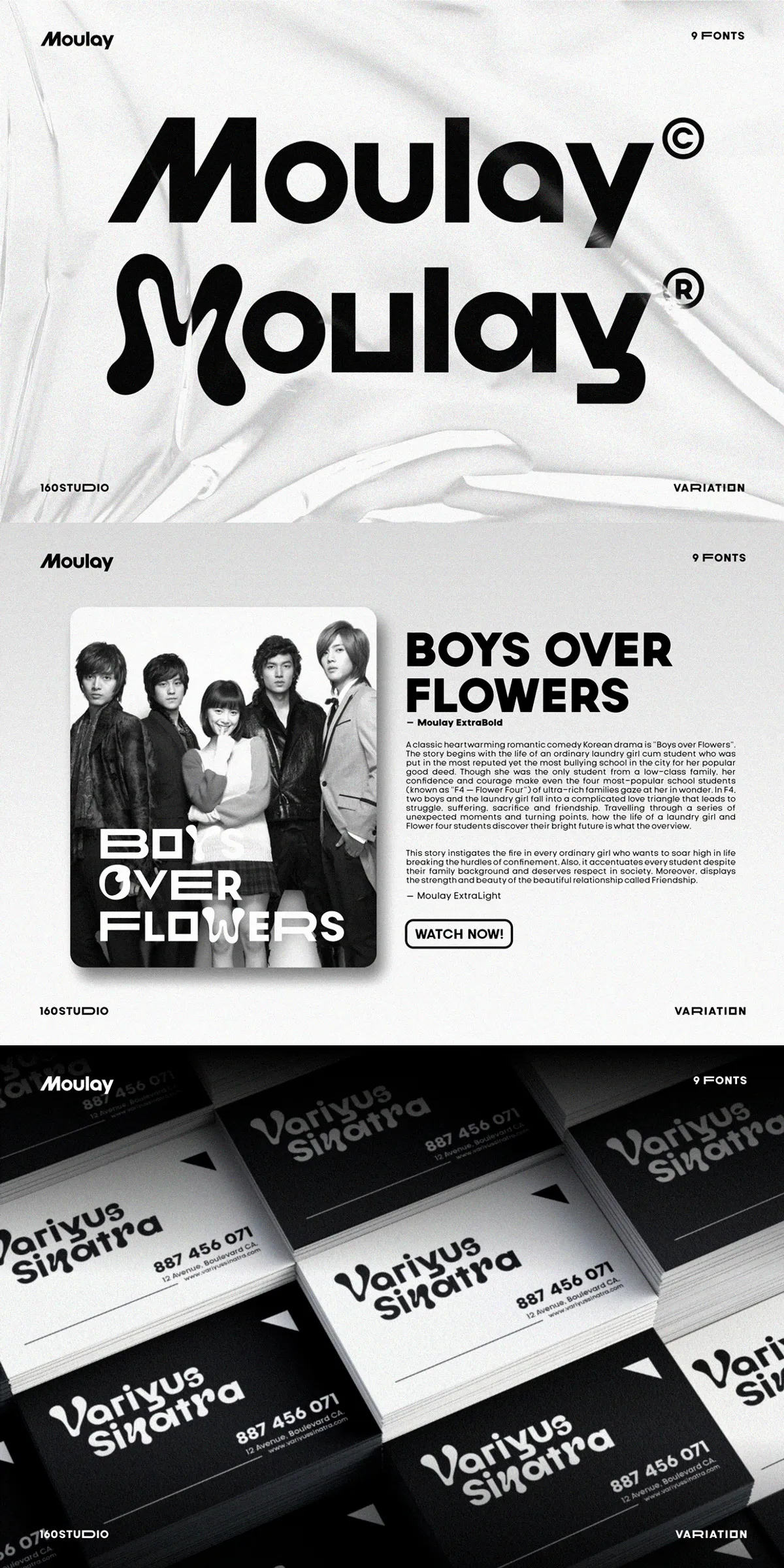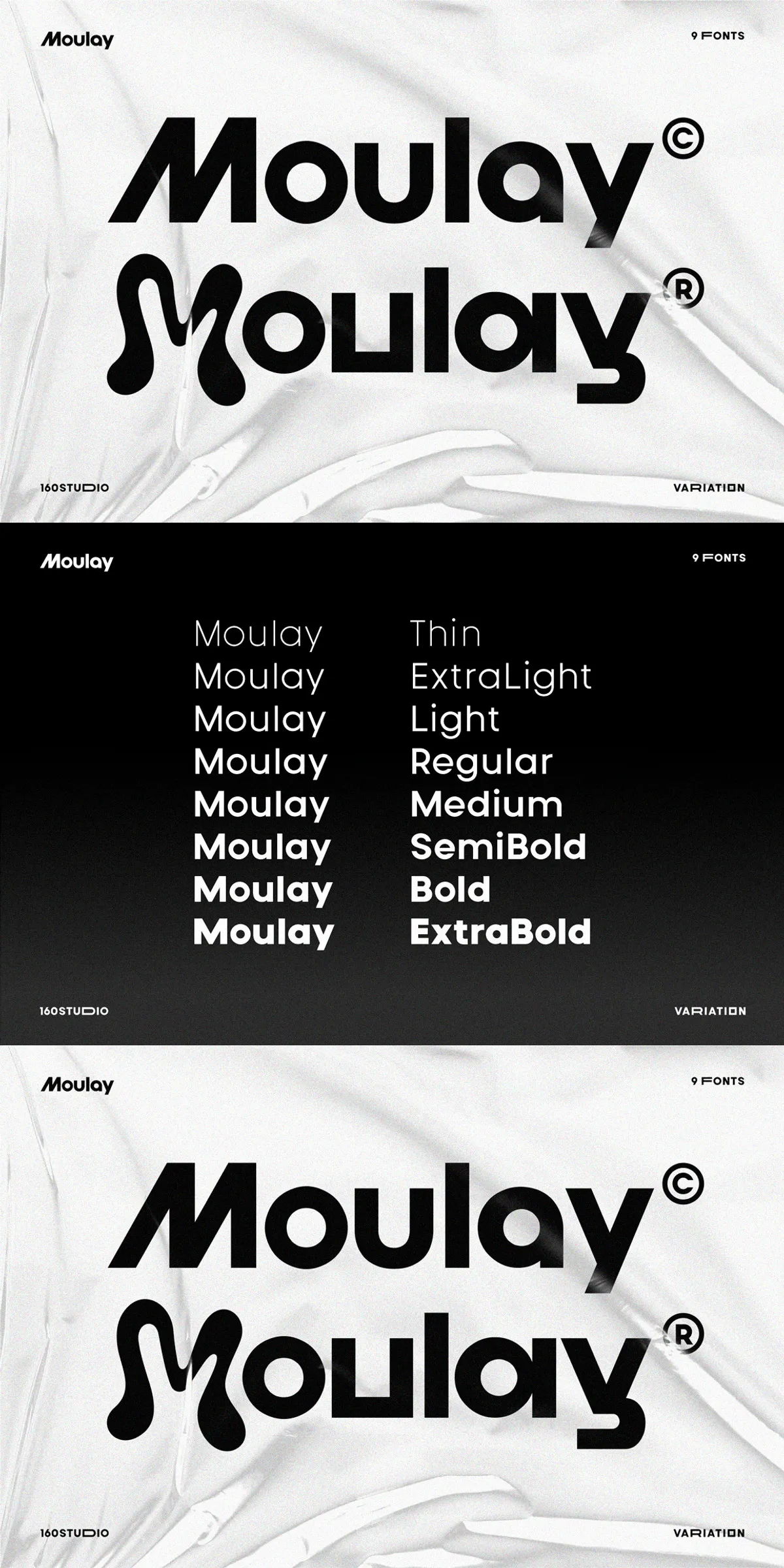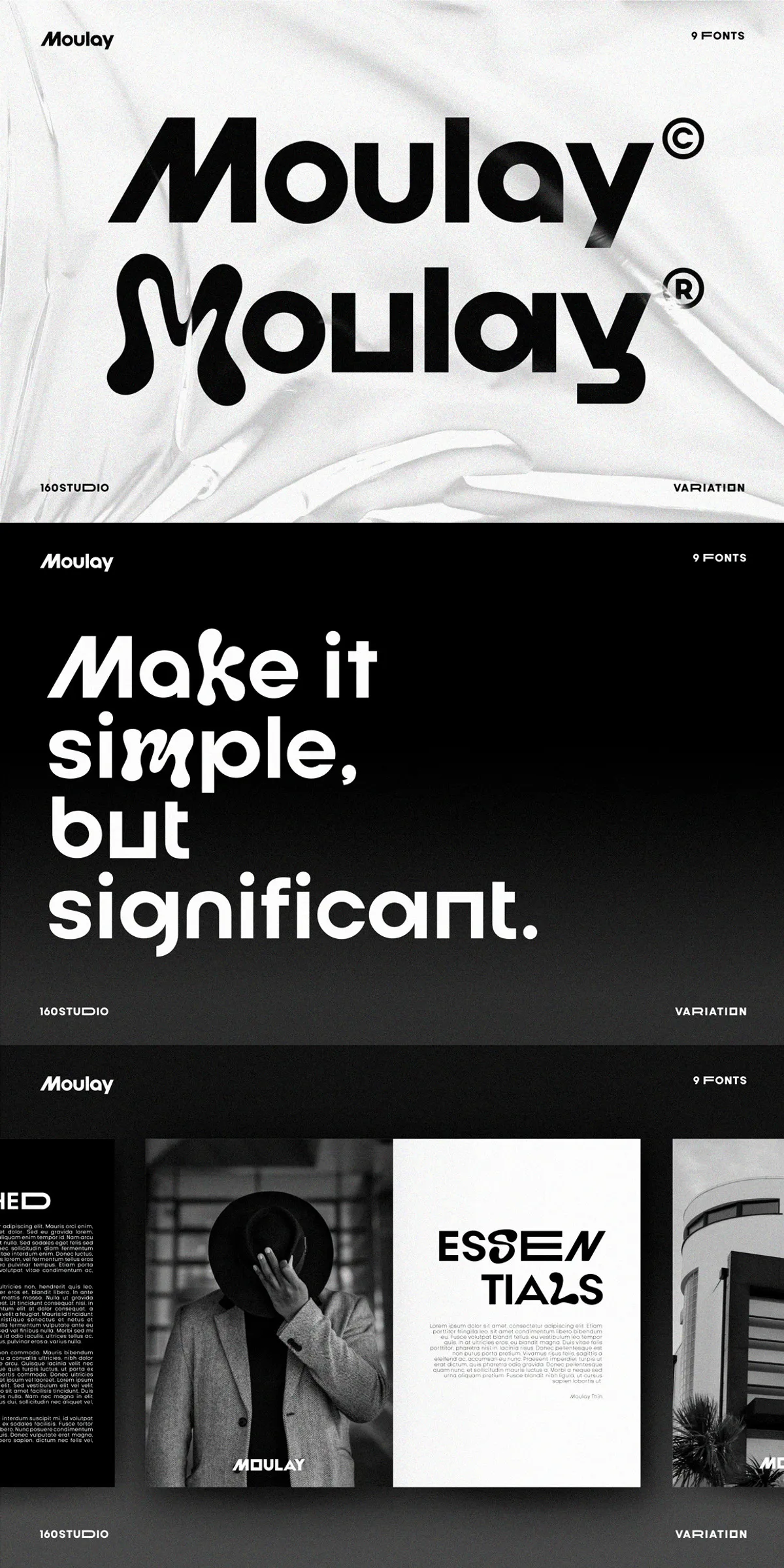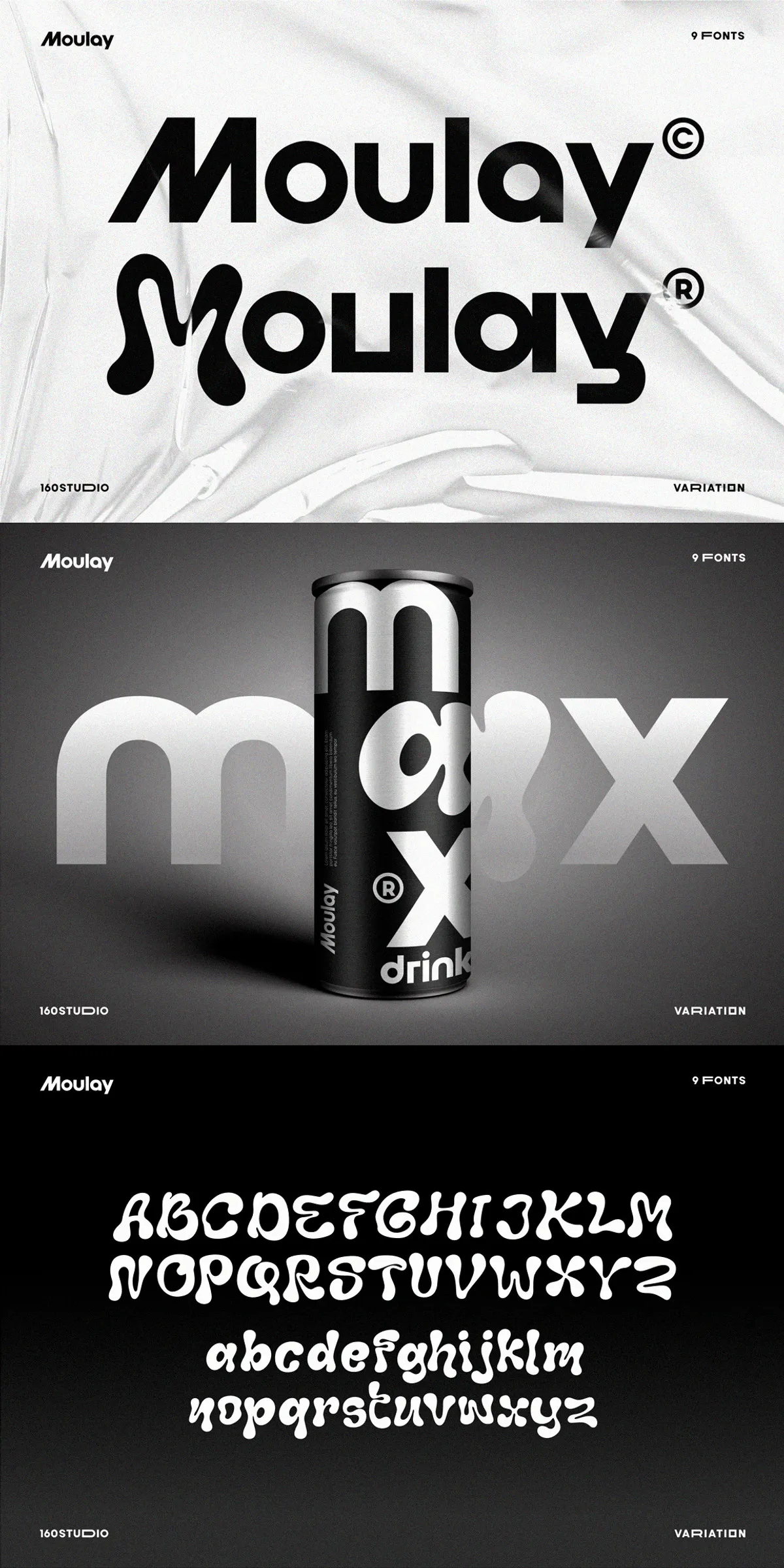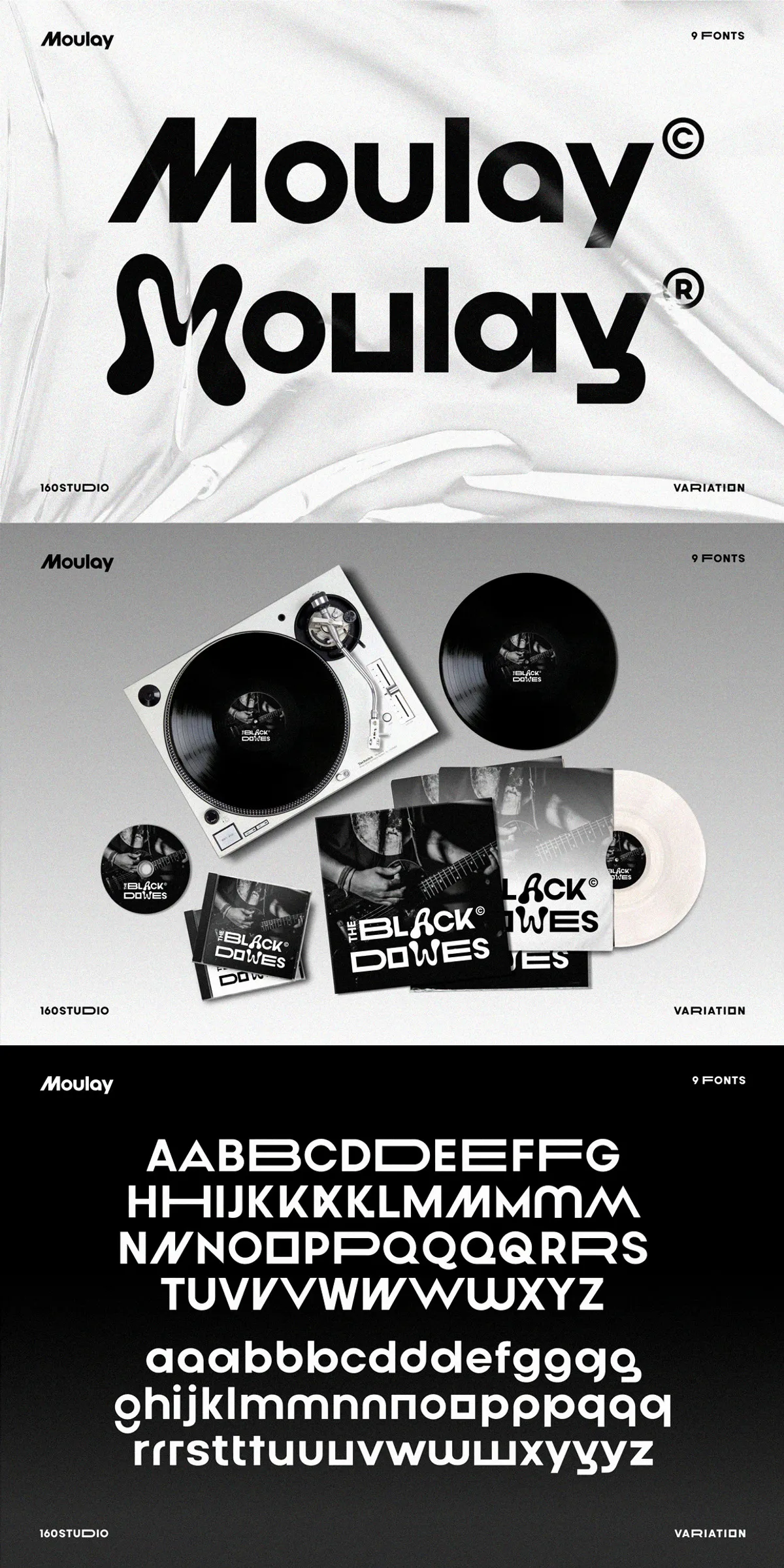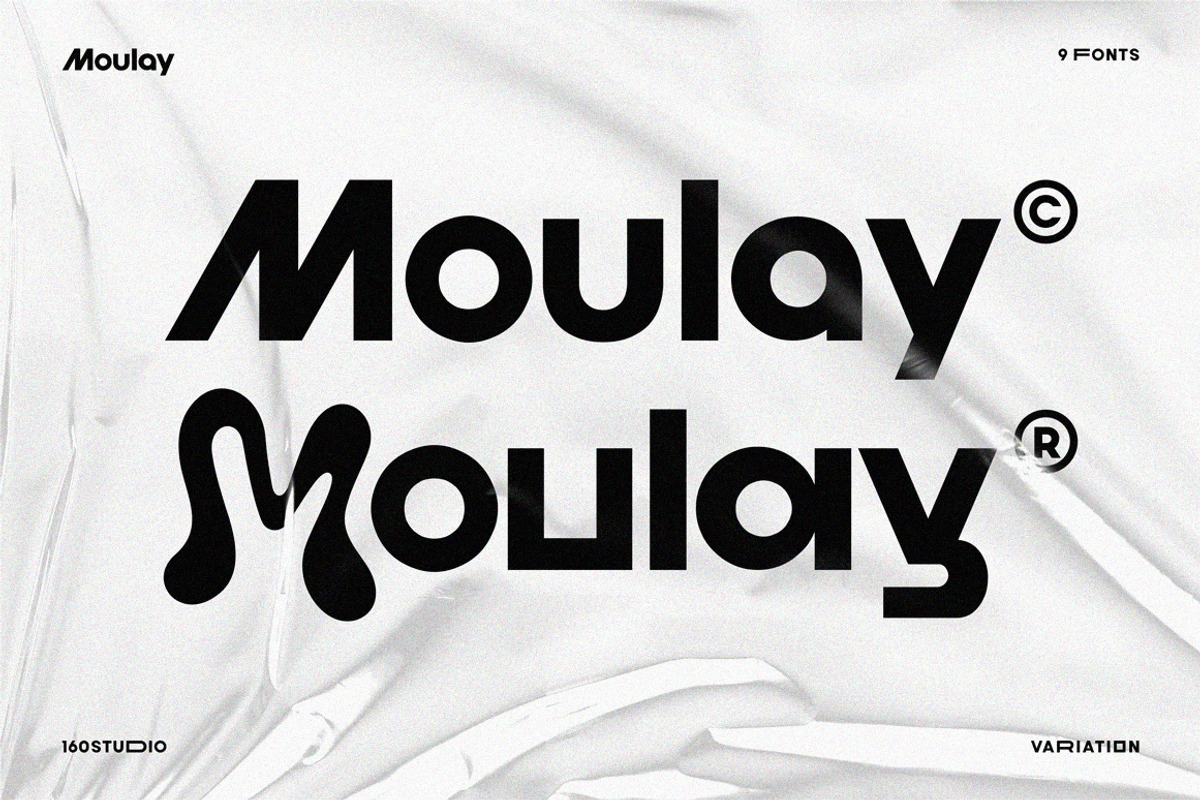
Meet Moulay — a dynamic, thoughtfully crafted pair of sans-serif fonts that thrive individually and shine even brighter when combined. This isn’t just a font family; it’s a typography revolution built for creatives who value strength, personality, and seamless harmony. With a casual, confident presence and a bold structural backbone, Moulay brings energy, rhythm, and visual clarity to every project.
From the first letter to the last punctuation mark, Moulay delivers an instant sense of personality. It’s the font choice for those who want to say something memorable — without shouting. Whether you’re designing a sleek brand identity, launching a magazine editorial, or crafting a striking poster, Moulay adapts with precision and flair.
Why Moulay Is the Ultimate Design Partner
Unlike many font pairs that feel mismatched or disjointed, Moulay was engineered from the ground up for perfect integration. The two fonts in the duo are designed with shared x-heights, stroke contrast, and spacing ratios, so they flow together like a natural conversation. This ensures clean alignment, balanced text blocks, and instant visual cohesion — no manual adjustments needed.
- Individual Power – Use each font on its own for strong display text, headings, or standalone branding elements.
- Harmonious Pairing – Combine them for maximum impact: one for headline energy, the other for body tone — a powerful typographic duet.
- Stylistic Alternates – Add character with optional custom letterforms that deepen the visual story.
Where Moulay Comes to Life
Moulay isn’t confined to one style or medium. It’s built to dominate across creative environments:
- Logo Design – Make your brand name unforgettable with bold, memorable typography.
- Editorial Layouts – Elevate magazine spreads, features, and quotes with a confident yet approachable tone.
- Poster & Display Typography – Grab attention with dynamic headlines that command the space.
- Product Packaging – Infuse boxes, labels, and inserts with personality and brand clarity.
- Website Headers & Callouts – Use the webfont version for fast, responsive, and scalable design elements.
- Print & Digital Content – Perfect for invitations, brochures, social media posts, and editorial quotes.
Every use case benefits from Moulay’s balance: bold enough to be noticed, refined enough to be respected, and fun enough to feel like a breath of fresh air.